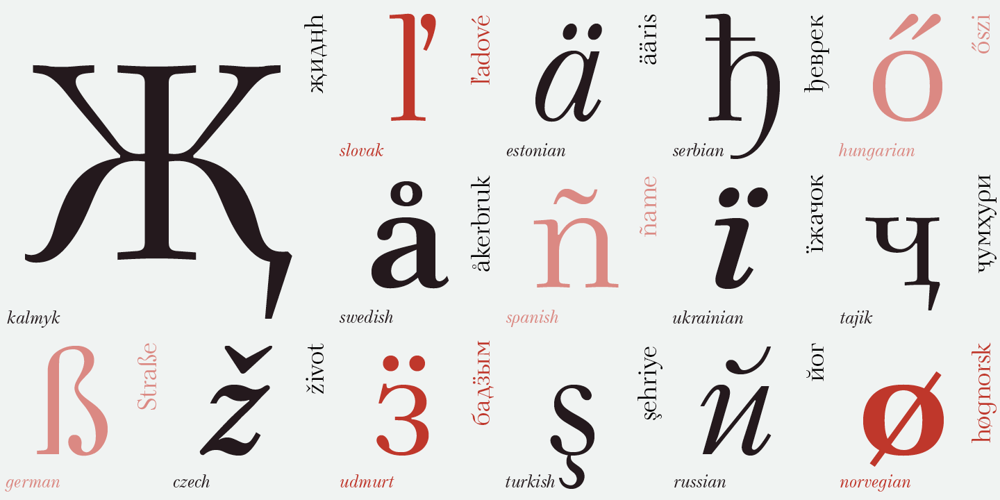
Neva
Neva font
Neva Font Family was designed by Lyubov Kuznetsova and published by ParaType. Neva contains 4 styles and family package options. Neva Regular with Italic was created by Moscow book and type designer Pavel Kuzanyan (1901-1992) at Polygrafmash in 1970 for slugcasting and display composition. Based on simple strict letterforms of Russian classical typefaces. Neva typeface was rewarded on the Gutenberg international type design contest in 1971 (Leipzig). The typeface is useful in text and display composition, in fiction and art books. The digital version and bold styles were designed for ParaType in 2002 by Lyubov Kuznetsova.